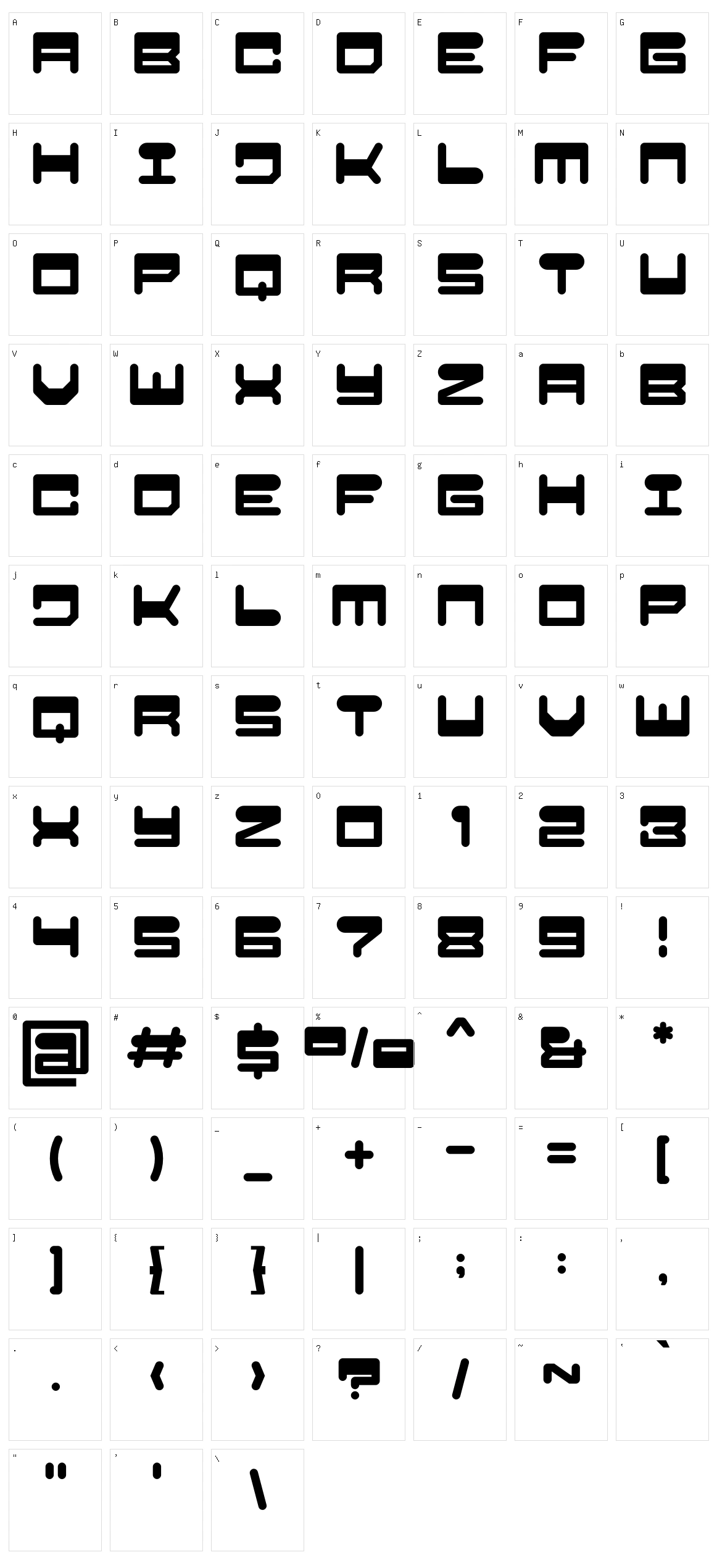
The free font Popboy is carefully designed by Linecreative, showcasing a thoughtful balance of creativity and usability and falls under the Groovy font style. When you download the ZIP file, it contains only 7.3 KB of font files, making it lightweight and quick to download. Please review the license details below to understand permitted usage and distribution rights. If license information is not available, we recommend using this font for personal projects only or contacting the author directly for commercial usage permissions.